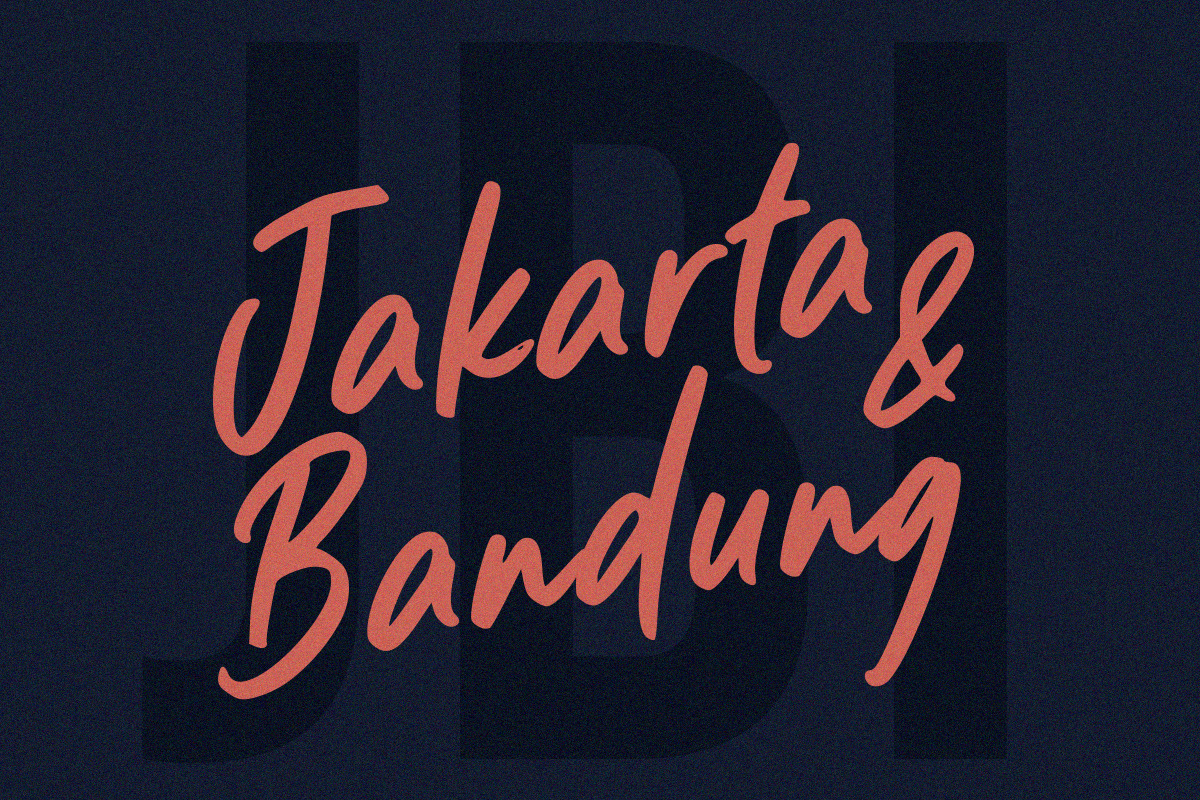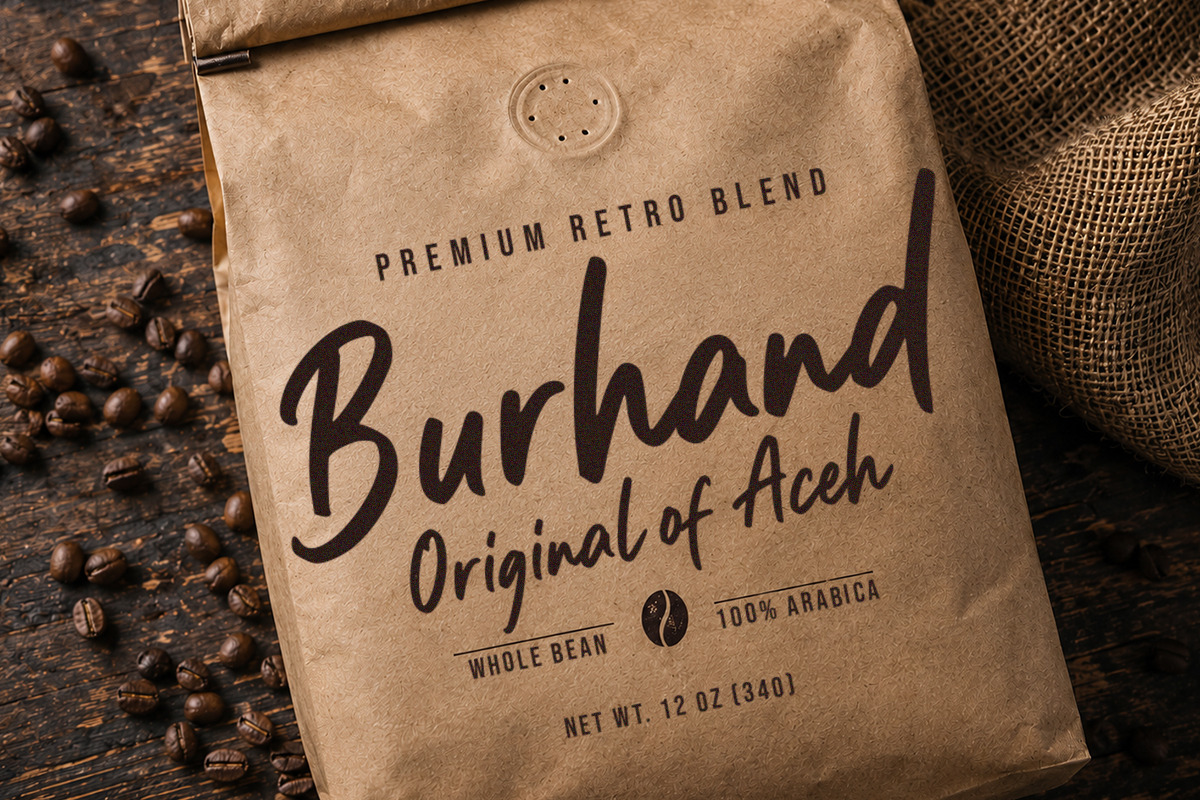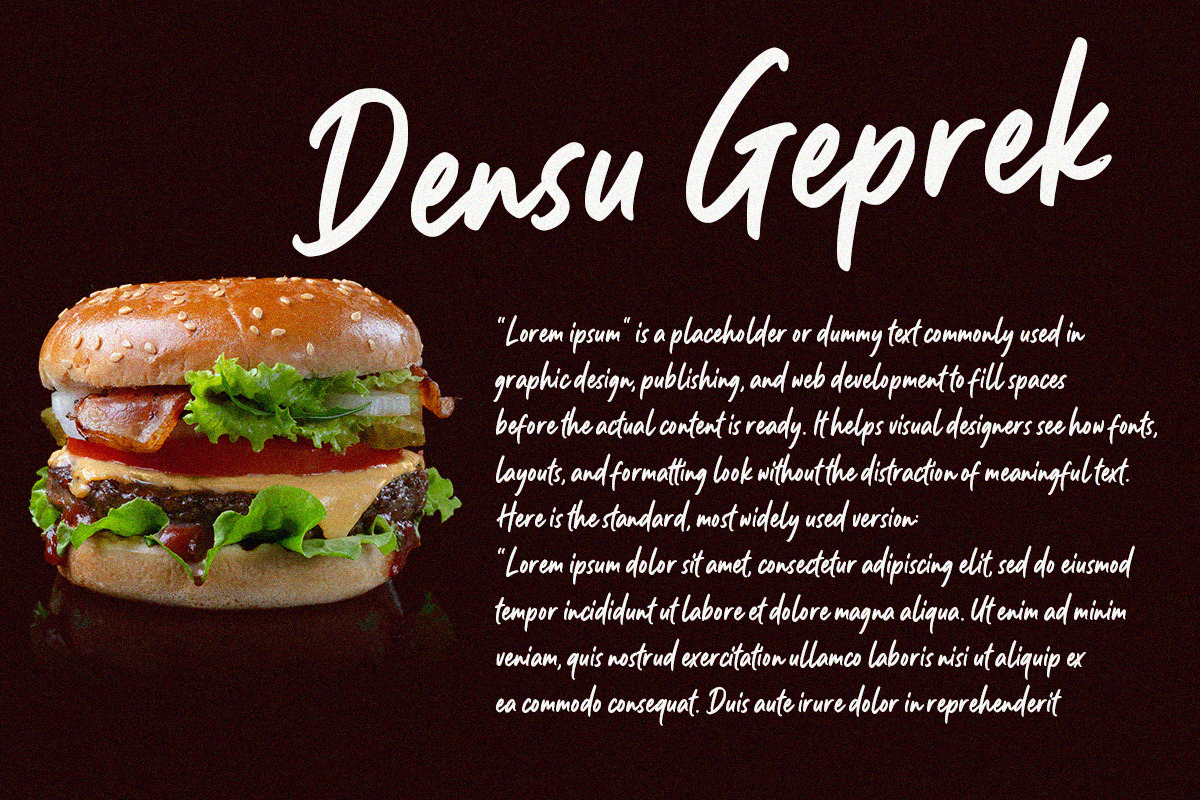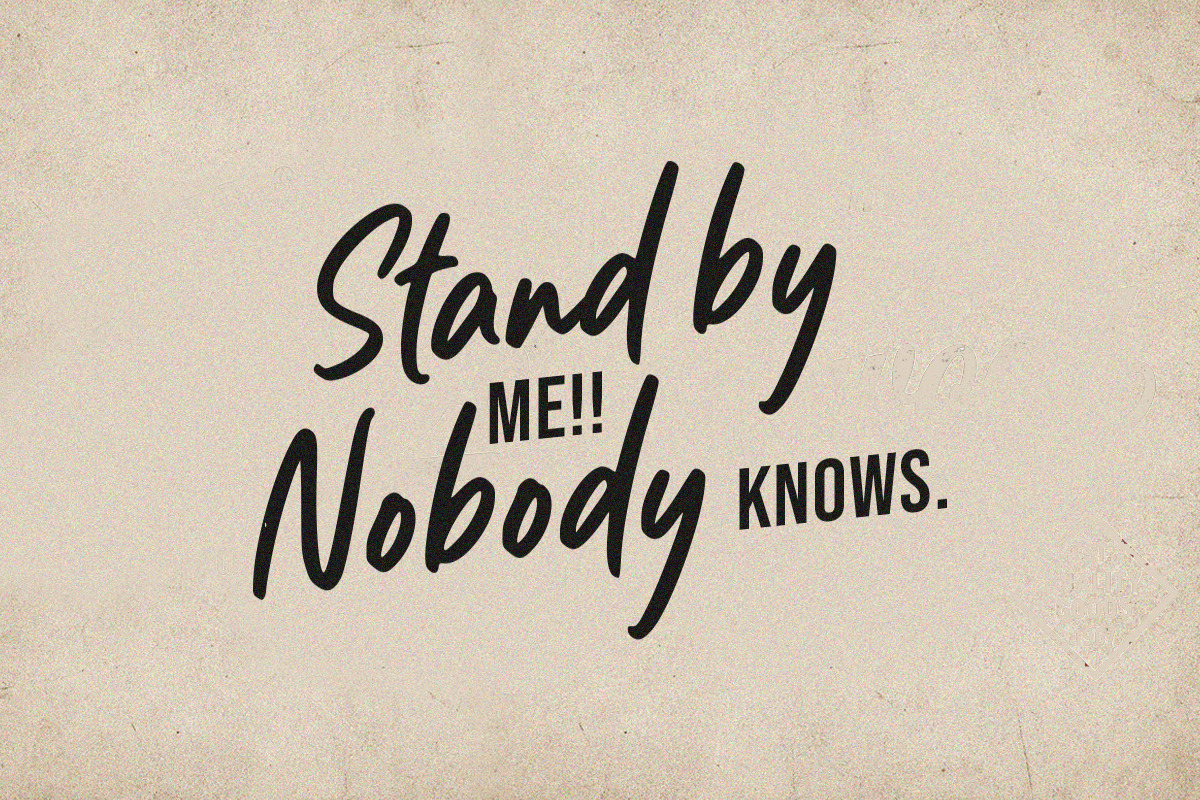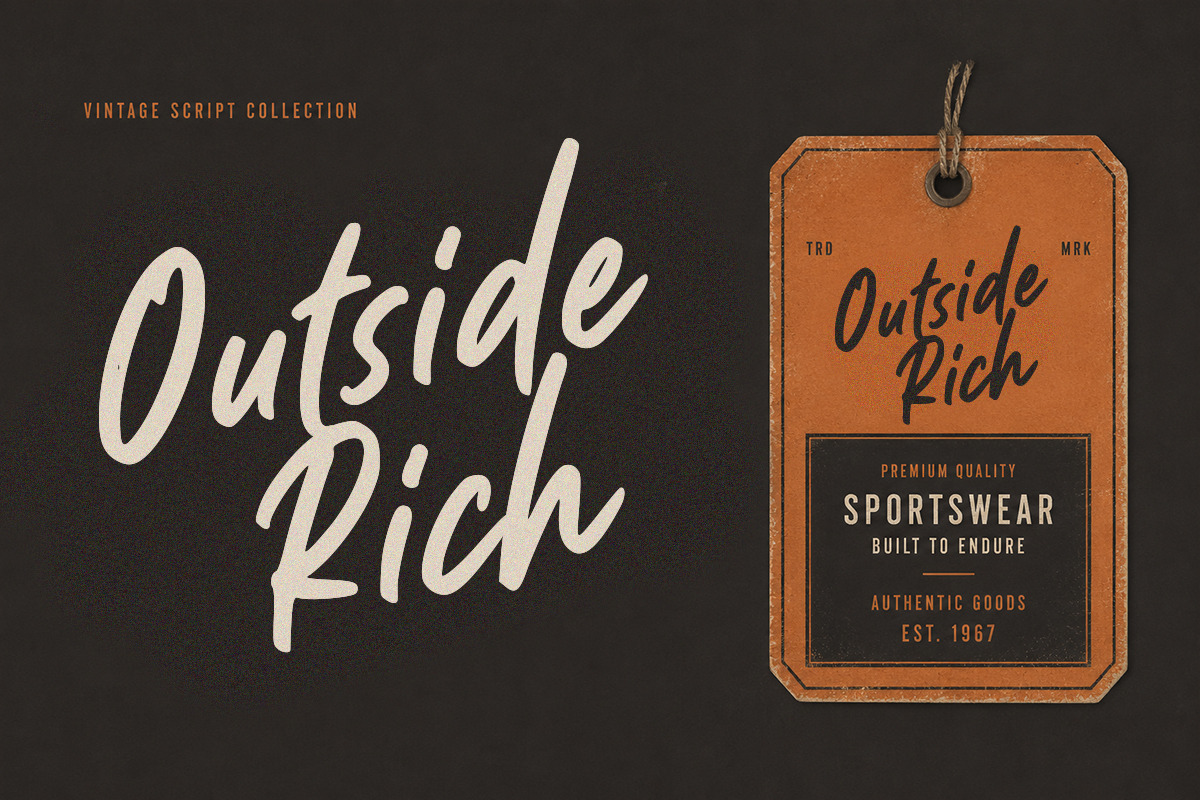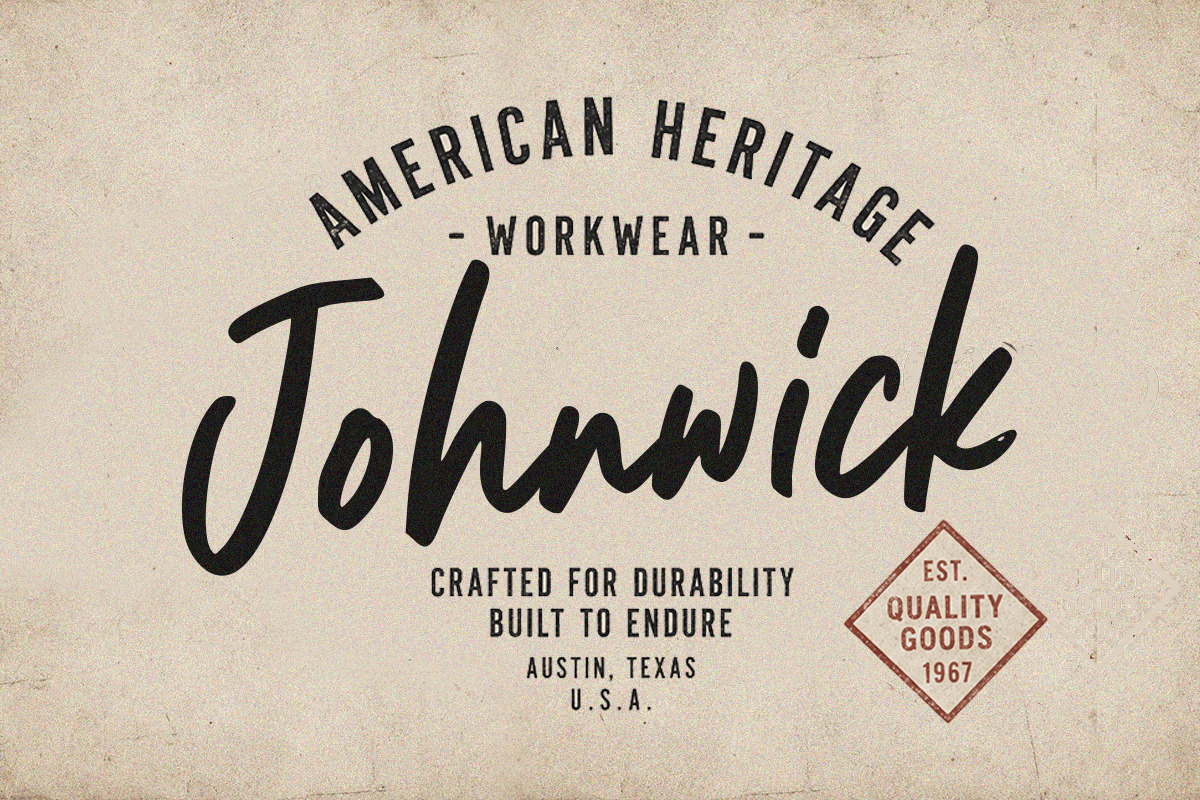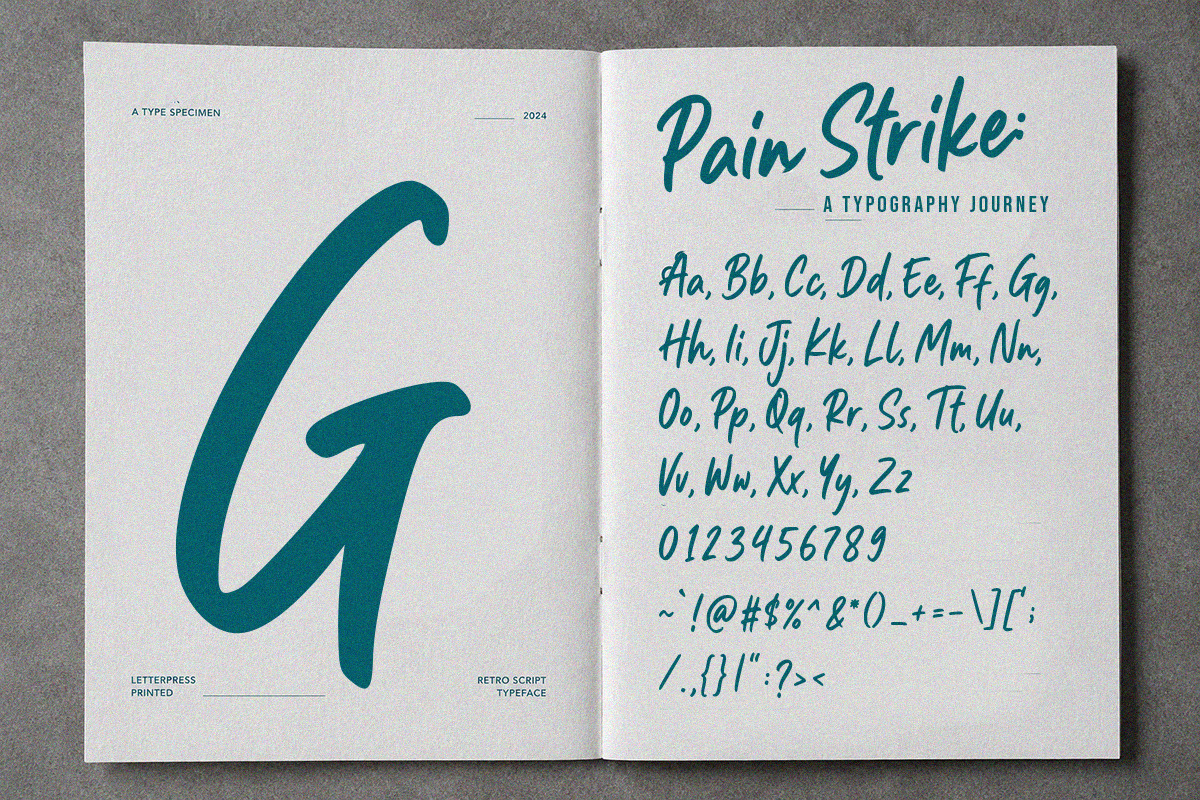
Pain Strike
Pain Strike – A Dynamic Handwriting Font
Infuse your designs with a personal, bold, and energetic touch with Pain Strike!
Pain Strike is a premium handwriting font that perfectly blends a natural, casual flow with a strong and striking character. Crafted with dynamic, organic brush-like strokes, this typeface delivers an authentic, modern aesthetic that breaks away from rigid typography to give your projects a soul of their own.